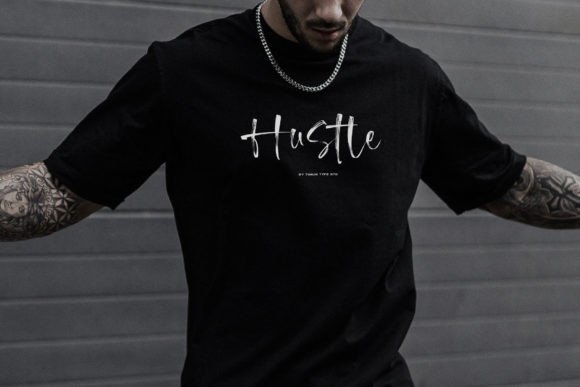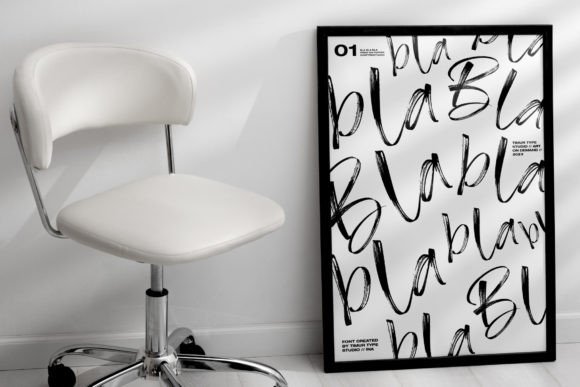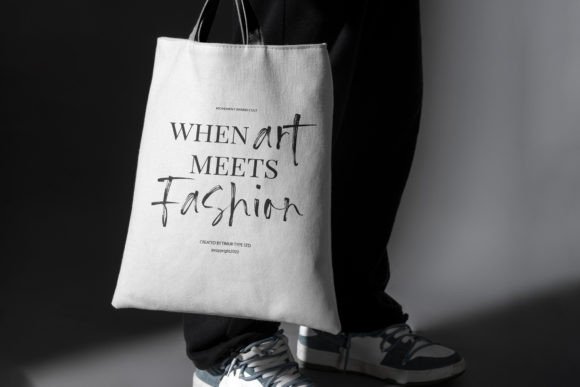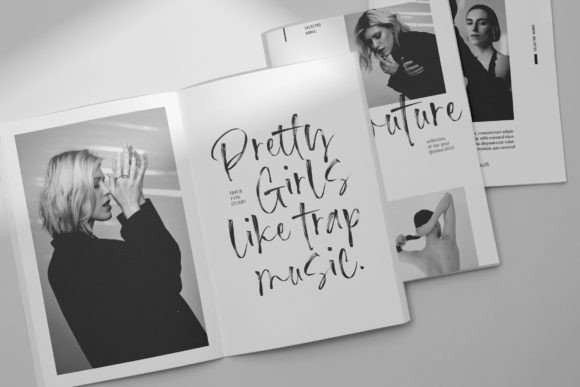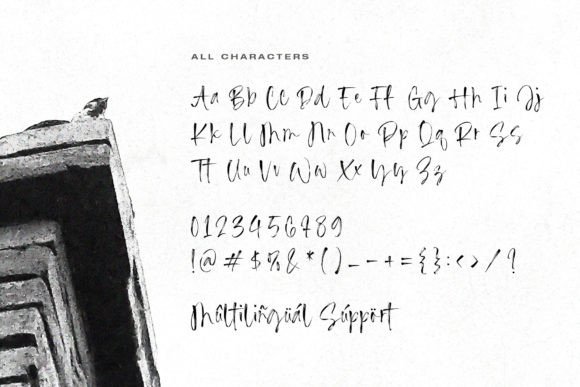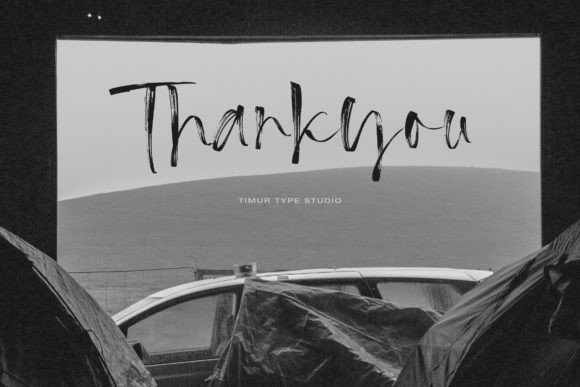
Introduction to Jasmine Century Font
Have you ever found yourself sitting at your desk, surrounded by scraps of paper and half-finished sketches, desperate for the perfect font to bring your creative project to life? I know I have. And then, like a breath of fresh air, you stumble upon a font that makes your heart skip a beat – a font that perfectly captures the essence of your design. For me, that font is the Jasmine Century Font, a sweet and delicate handwritten font that’s as charming as it is elegant.
As a designer, there’s nothing quite like discovering a new font that elevates your work to the next level. The Jasmine Century Font is one such treasure, offering a dainty and joyful touch that’s perfect for wedding invitations, cards, and any other design that needs a romantic, personalized touch. And the best part? This high-quality font is available for free download, making it an invaluable resource for any design project.
- Features a unique, elegant design with a mix of modern and vintage elements
Honest Review: Jasmine Century Font
As a designer, I’m always on the lookout for high-quality design resources that can elevate my creative projects. Recently, I had the opportunity to work with the Jasmine Century Font, and I must say, it’s a solid addition to any design arsenal.
What works well: ✨ The Jasmine Century Font is incredibly versatile, with a beautiful mix of modern and vintage elements that make it perfect for a wide range of design applications. The font is also highly customizable, allowing designers to tweak the settings to fit their specific needs.
However, there are a few limitations to consider: ⚠️ While the font is generally well-behaved, I did encounter some issues with font size and line height on certain systems.
Overall, I’m impressed with the Jasmine Century Font and would recommend it to designers looking for a high-quality, versatile font that can add a touch of elegance to their creative projects.
The Jasmine Century Font is a high-quality design resource ideal for creative projects. This elegant font features a transparent background, making it a versatile choice for various applications.
The Jasmine Century Font is ideal for wedding invitations, luxury brand designs, and high-end marketing materials. Its elegant design makes it a popular choice for creative projects requiring sophistication and refinement.